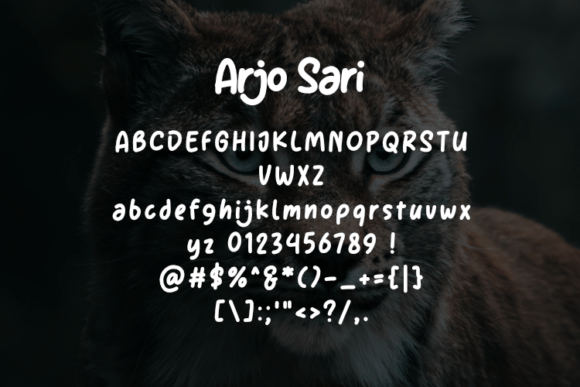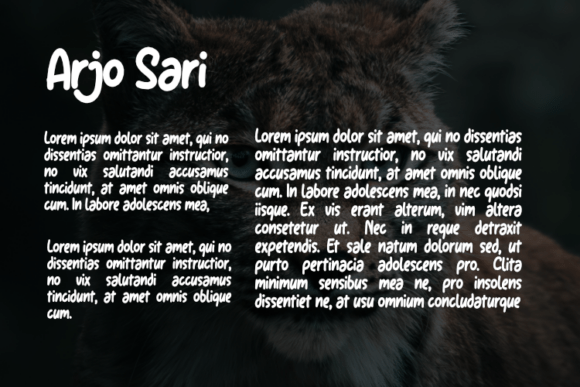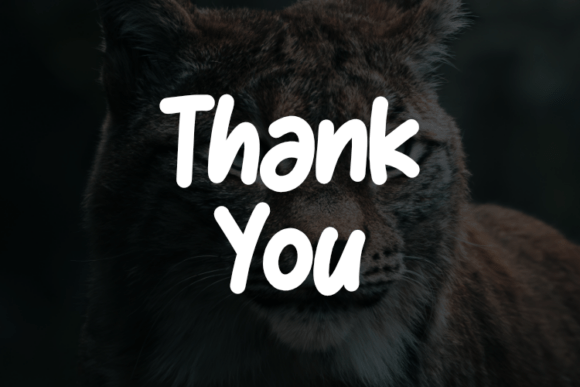
Introduction to Arjo Sari Font
Immerse yourself in the charm of Arjo Sari, a bespoke font artfully crafted to infuse your design with elegance.
Whether youโre adorning apparel, embellishing t-shirts, or enriching any product design, Arjo Sari uniquely tailors itself to any design aesthetic This adaptable font thrives across all software platforms, ensuring a seamless creative experience.
Key Features of Arjo Sari Font
Why Choose Arjo Sari Font?
Arjo Sari Font offers exceptional quality and versatility, making it a valuable addition to your design toolkit. Whether you’re creating for personal projects or commercial use, Arjo Sari Font delivers professional results.